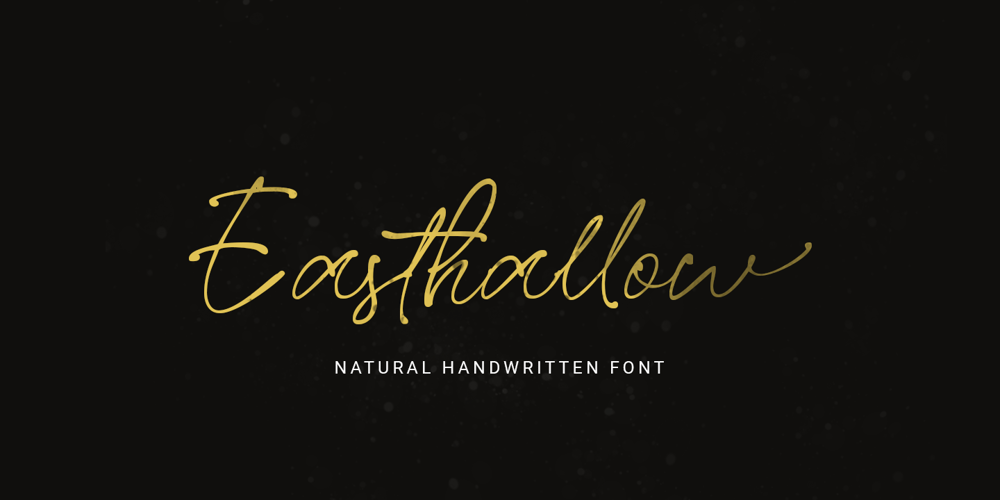
Easthallow Font Family was designed by Gustian Agung Asprilla and published by Rillatype. Easthallow contains 1 styles and family package options. Introducing, Easthallow Handwritten Font!Easthallow is a natural handwritten font that gives a natural and feminine touch to your design. This font is perfect for signature logos, wedding invitation, branding, etc.Features : uppercase & lowercase numbers and punctuation multilingual ligatures alternates PUA encoded